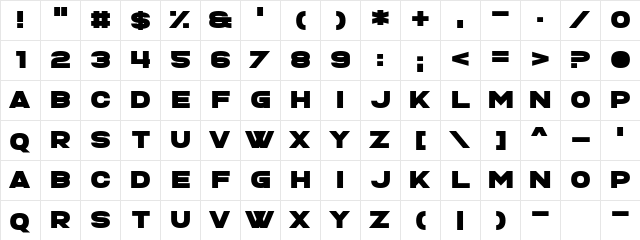
Ministry of Moron Regular
| Designer | Allison James |
Design Context for Ministry of Moron Typeface
Ministry of Moron takes a measured approach to typography — its balanced proportions and neutral character make it a reliable workhorse for both digital and print work.